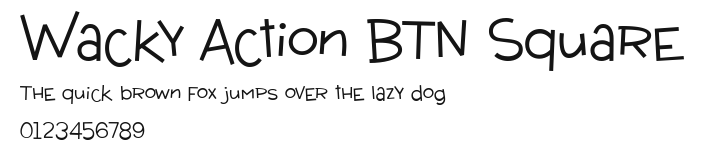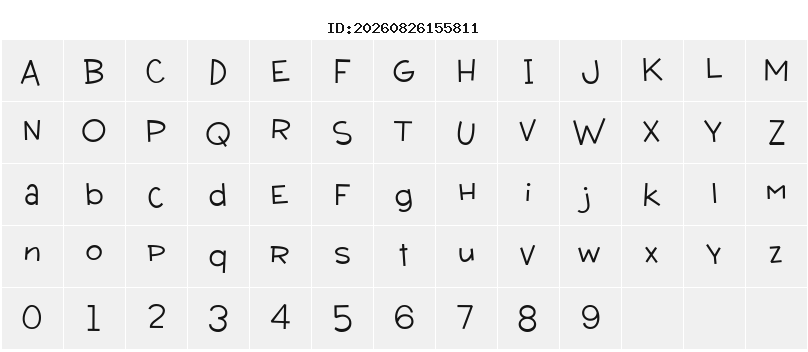
• Font Name: Wacky Action BTN Square
• Font ID: Wacky Action BTN Square
• Full Font Name: Wacky Action BTN Square
• PostScript Name: WackyActionBTNSquare
• Character Count: 264
About Wacky Action BTN Square.ttf
Wacky Action BTN Square.ttf is a modern, elegant sans-serif font designed for ultimate readability and visual harmony. Perfect for branding, headlines, web design, and print materials.